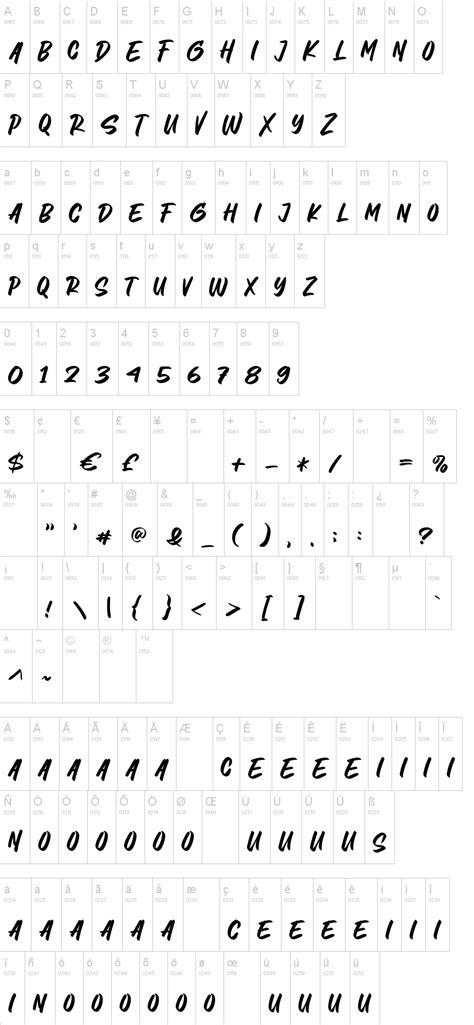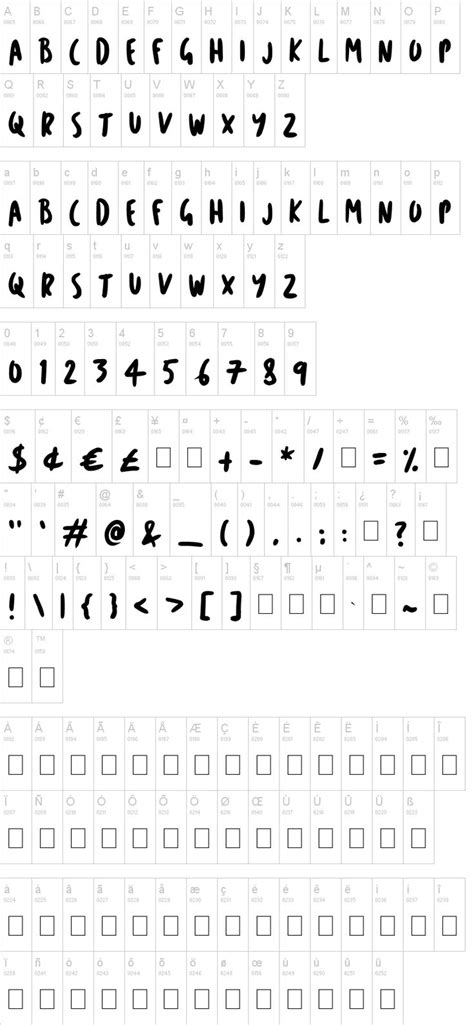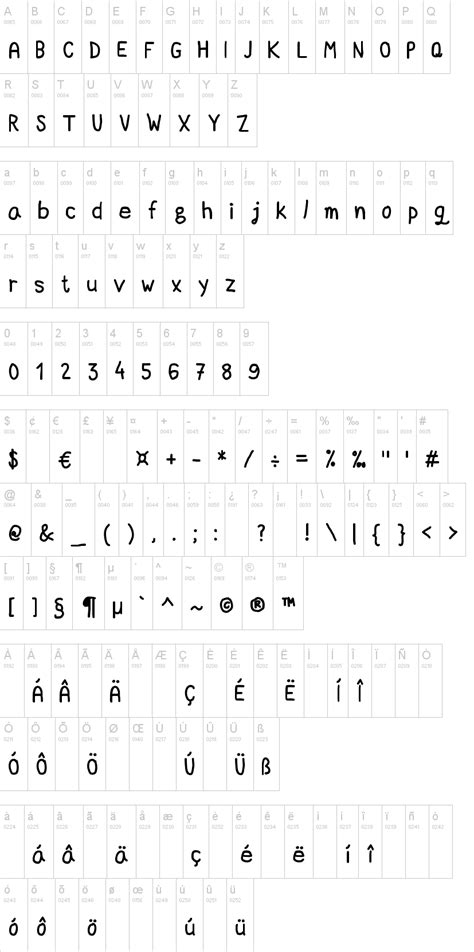
The style of this font are casual, lovely, contemporary, modern, elegant, luxury and classic brush font. 68 professional handwriting marker fonts to download. It would look awesome on branding and designs that rock (and roll).
Expressive font with good proportions and excellent readability.
Handwriting fonts bring a new artistry to fonts, as they are actually based on people's individual handwriting. Looking for handwriting marker fonts? Patrick hand is a font based on the designer's own handwriting.
The line gets thicker at both ends to define the beginning and end of the stroke, as a marker line would do.
Orson welles, da vinci, picasso o kanye west. It is a medium weight and meant to mimic medium point marker writing. It would look awesome on branding and designs that rock (and roll).
Manoyri is a free font designed by stergios tsiamis and iordanis passas with a true feel of marker handwriting. If you want to create professional printout, you should consider a commercial font.
Quillbacks script font is a modern handwriting calligraphy font. It supports english and greek.
Another free handwriting font packed with personality, fair prosper is a marker pen font designed by khurasan. It comes in a clean and texture versions, and works the best.
Browse by alphabetical listing, by style, by author or by popularity. Quillbacks script font is a modern handwriting calligraphy font.
Quillbacks script font is a modern handwriting calligraphy font. Handwriting fonts bring a new artistry to fonts, as they are actually based on people's individual handwriting.
✓ click to find the best 672 free fonts in the handwriting marker style. If you want to create professional printout, you should consider a commercial font.
Looking for handwriting marker fonts? Free fonts often have not all characters and signs, and have no kerning pairs (avenue ↔ a venue, tea ↔ t ea).
Archive of freely downloadable fonts. The line gets thicker at both ends to define the beginning and end of the stroke, as a marker line would do.